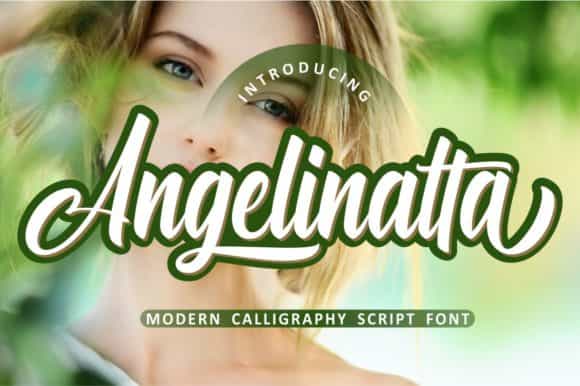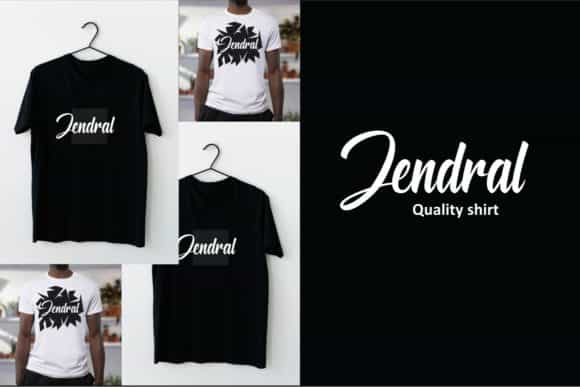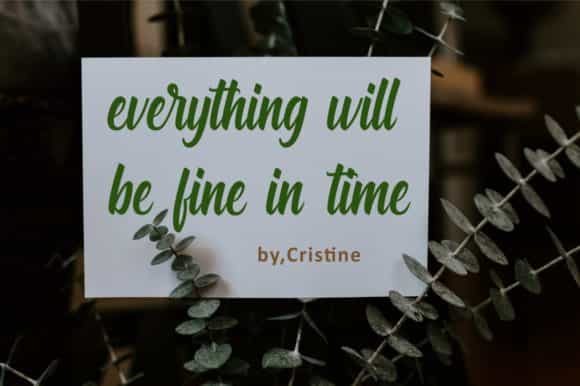
Angelinatta is one more handwritten font with a distinguished and charming look that resembles chalk font style in design. Get inspired by its luxurious chic. It is drawn by Ahmad Rofingi, and one can download it for free use with an intention for personal purposes only.